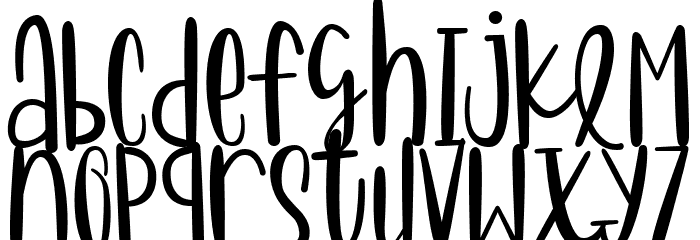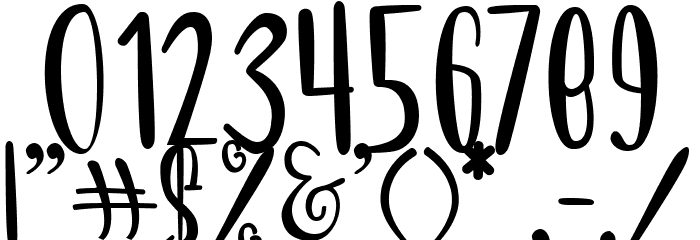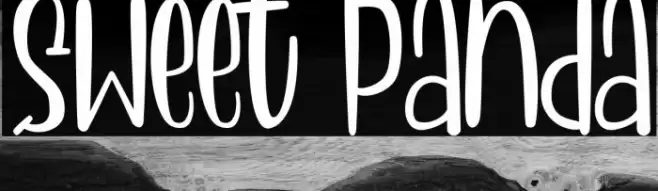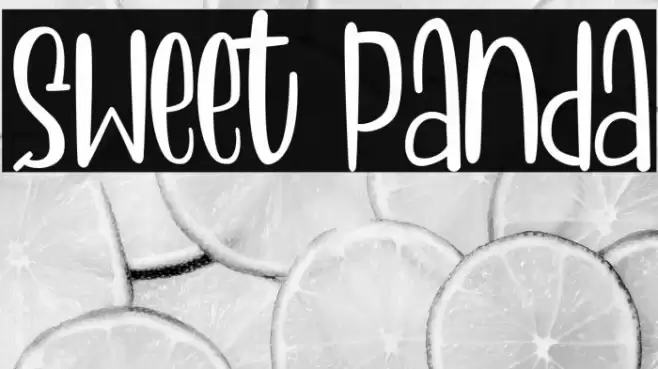
Sweet Panda Font
This playful and whimsical font features tall, narrow characters with a hand-drawn aesthetic. The strokes are bold and consistent, giving it a strong presence while maintaining a casual and friendly vibe. The uppercase and lowercase letters share a similar height, creating a uniform look. Numbers and special characters are designed with the same playful style, making them perfect for creative projects. The font's unique charm makes it stand out, ideal for designs that require a touch of personality and fun.
A playful, hand-drawn font with tall, narrow characters and a whimsical style.
- Proposed Projects: Ideal for children's books, playful branding, greeting cards, and creative posters.